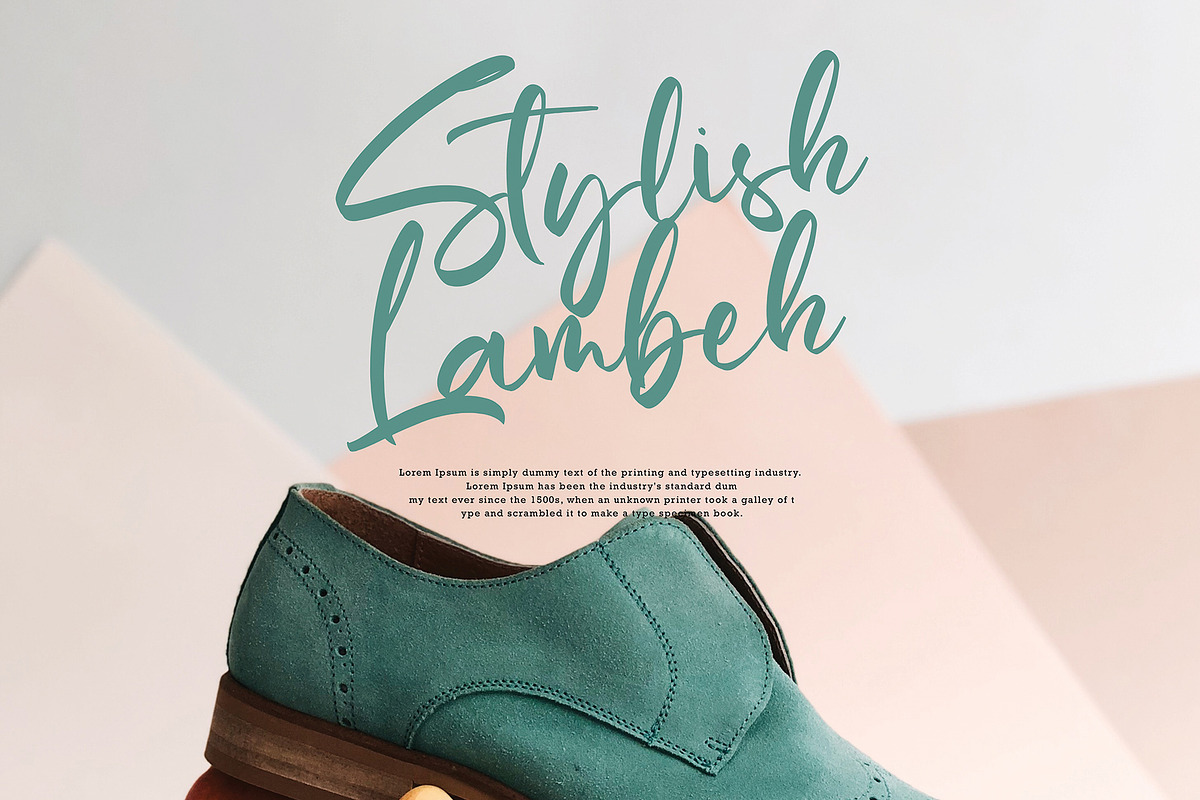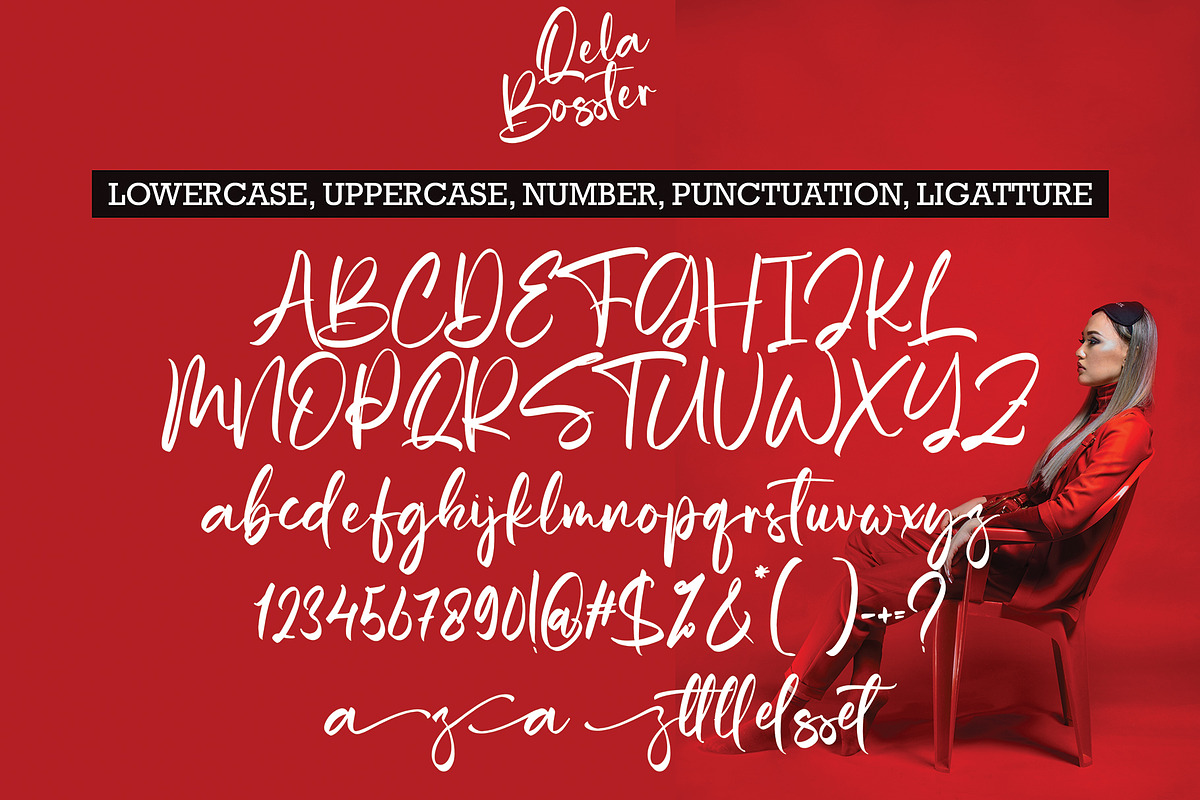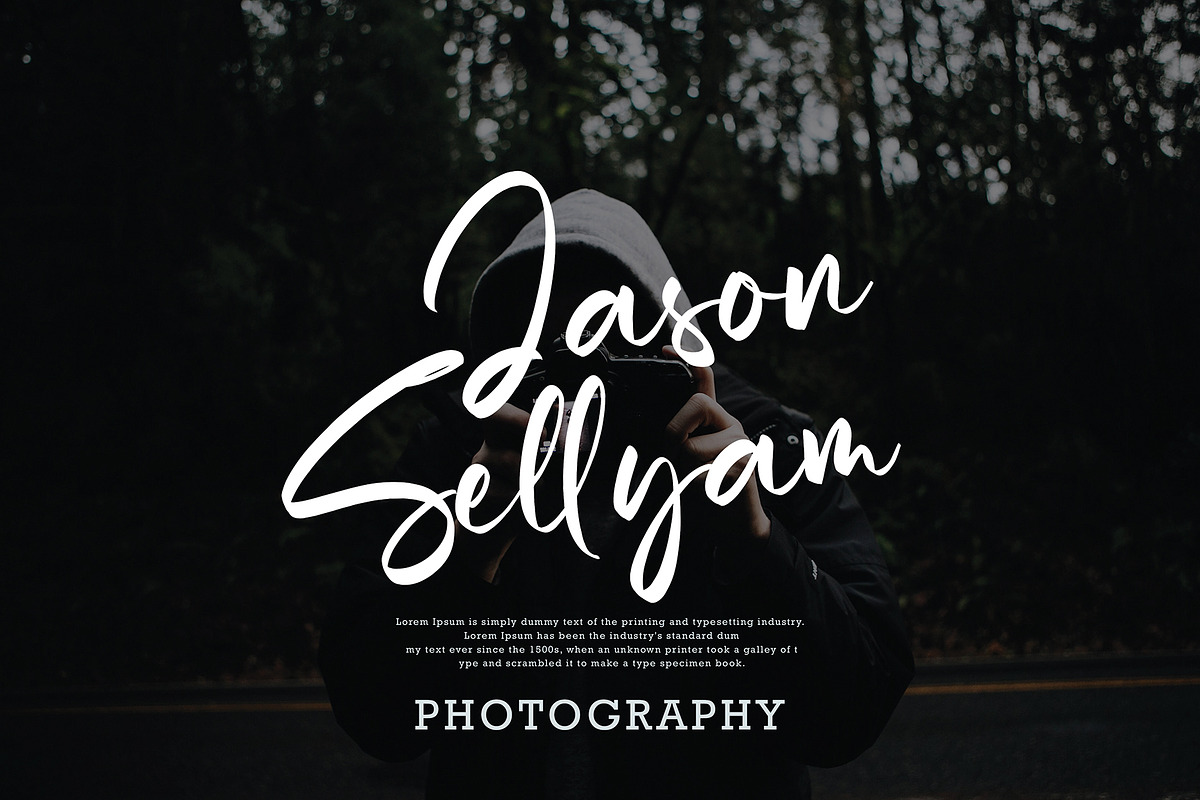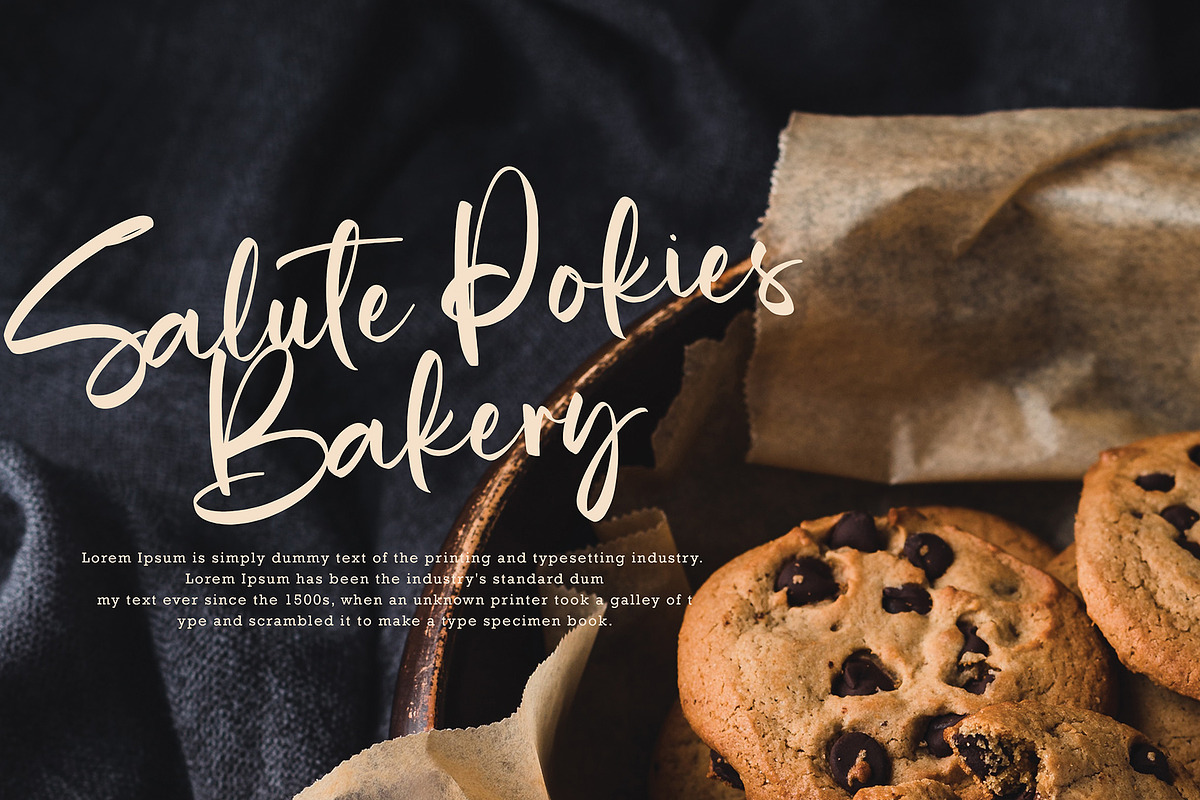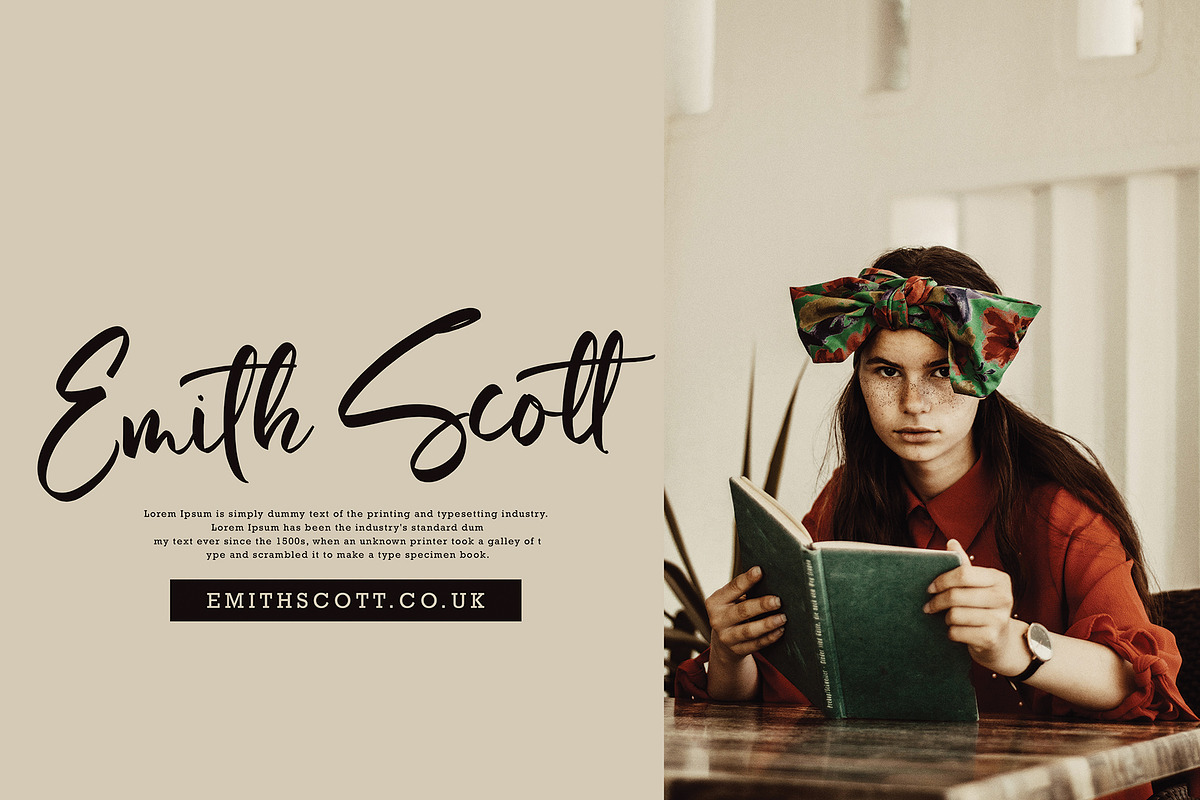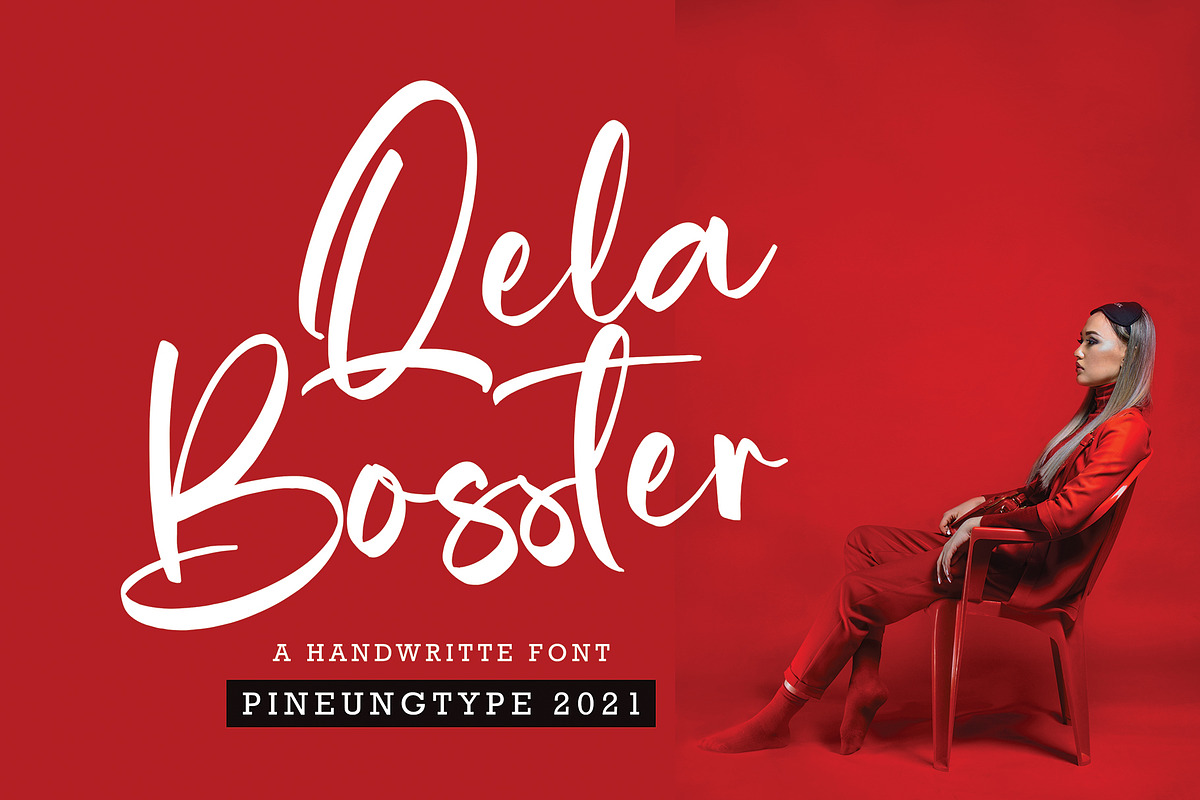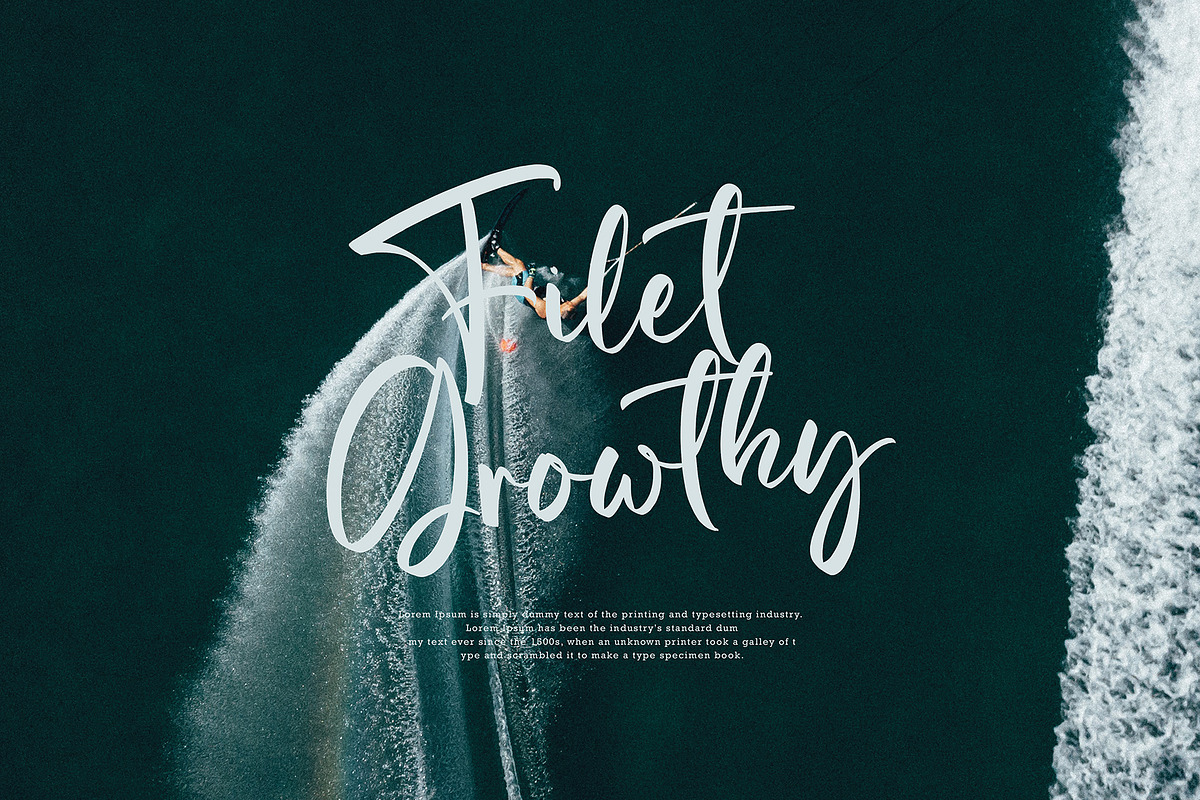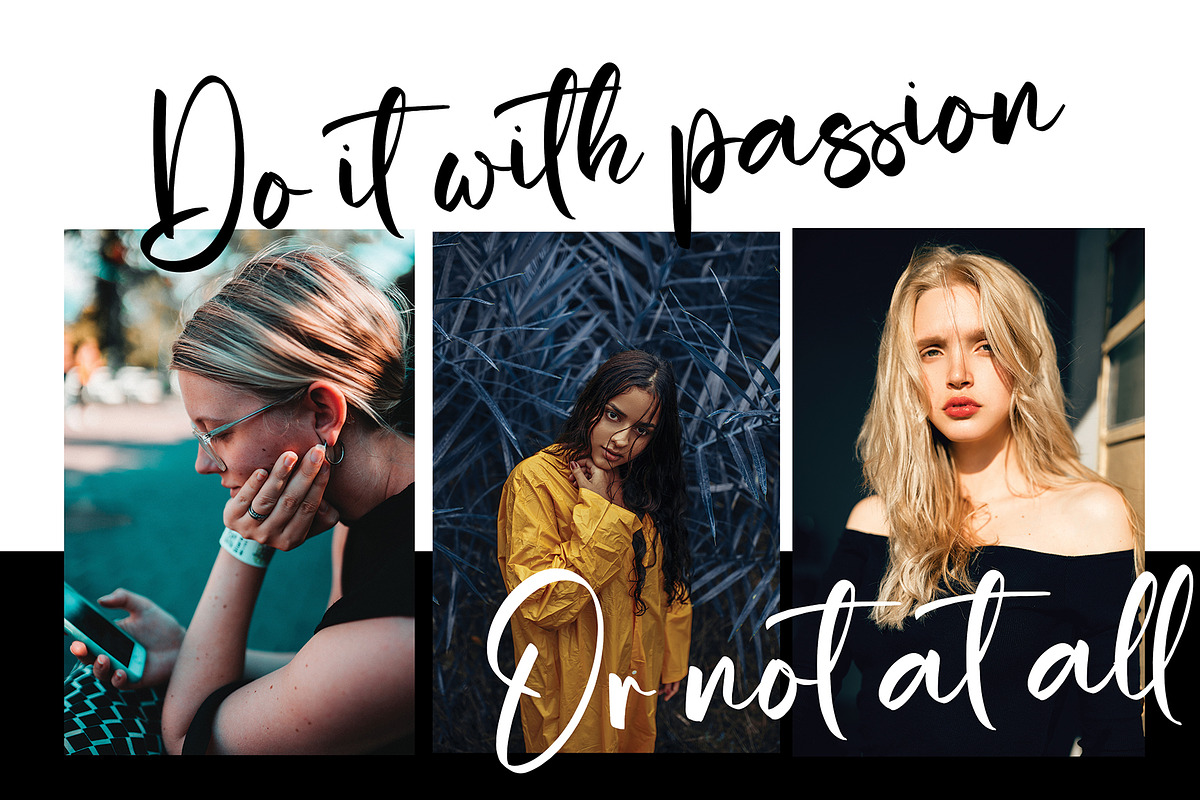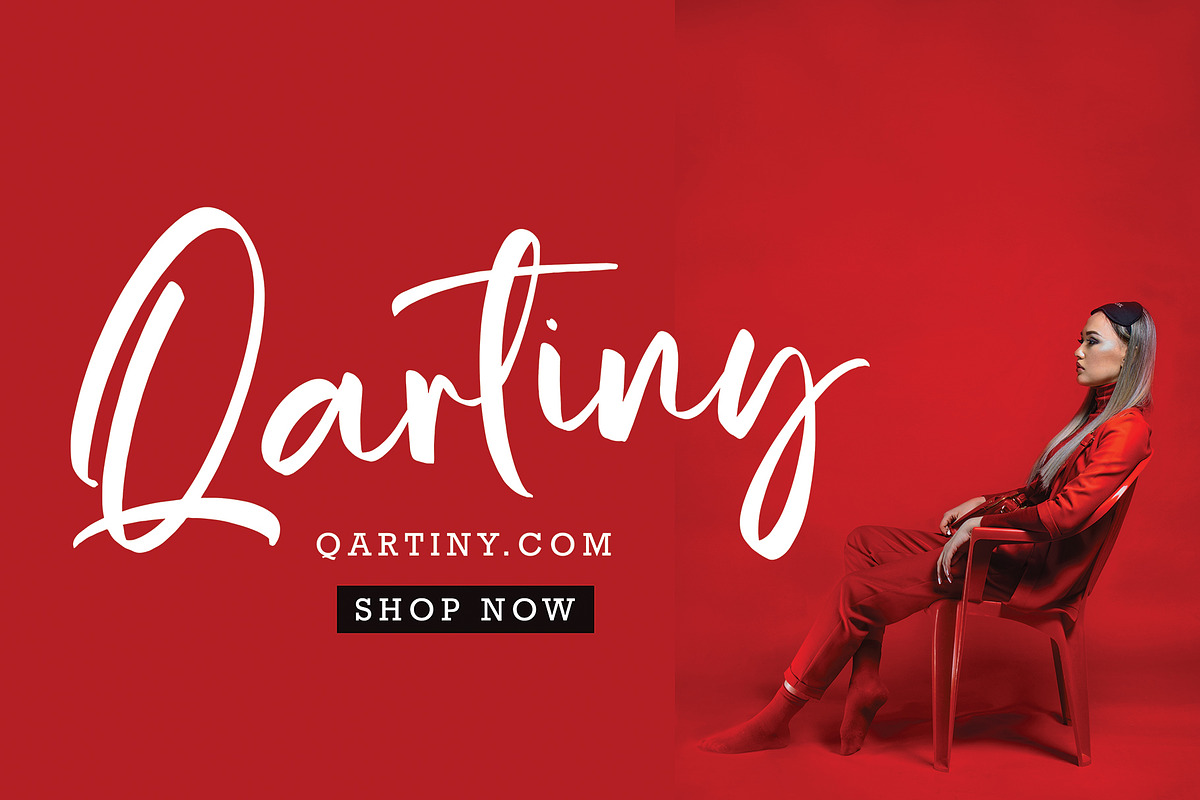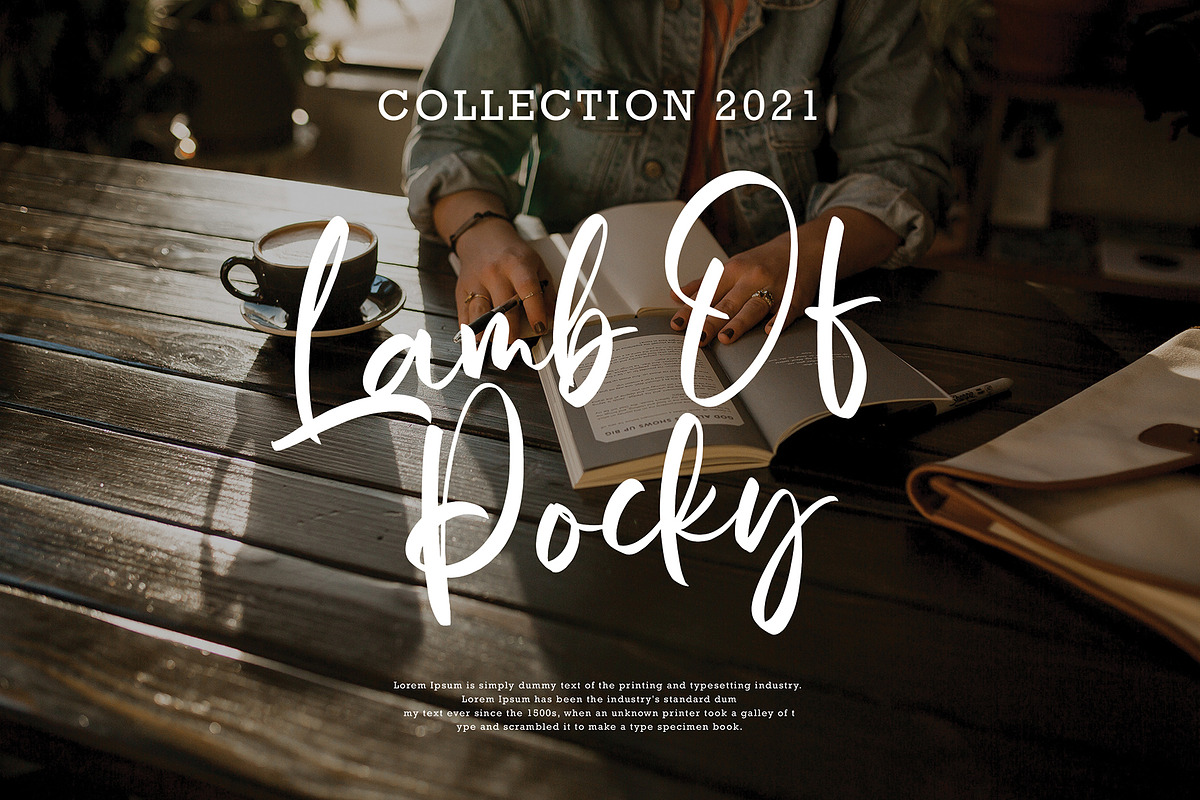
Qela Bosster
Qela Bosster font with new style, this font will perfect for many different project ex: quotes, logo, blog header, poster, banding, fashion, apparel, letter, invitation, stationery, etc...